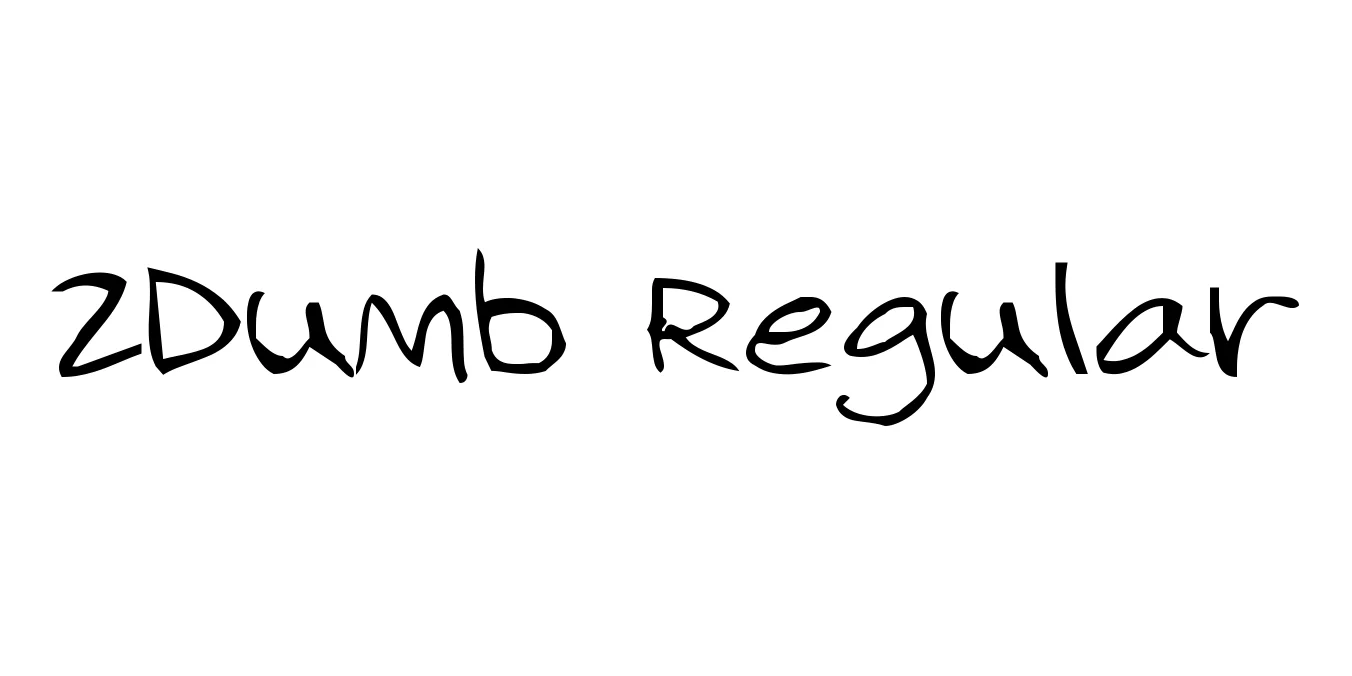
2Dumb Regular
Designed by Benjamin Nathan
| Category | Handwritten |
| Designer | Benjamin Nathan |
2Dumb Regular is a widely recognized hand-drawn typeface created by Benjamin Nathan. Designed to evoke a sense of casual, unrefined creativity, the font mimics the look of quick sketches or personal notes. It is part of a thematic set that includes its companion, 3Dumb, offering a flat, two-dimensional alternative to the layered look. Its irregular character shapes and organic strokes provide a distinct, humanistic quality that stands out in a digital landscape often dominated by rigid geometric forms.
Throughout its history, 2Dumb has been embraced by designers looking for a playful and approachable aesthetic. It is especially popular in projects that require a "DIY" or handcrafted feel, such as independent comic books, school posters, and casual web graphics. By eschewing traditional typographic rules, 2Dumb offers a relatable and friendly vibe that makes it an excellent choice for informal communication and creative storytelling.
2Dumb Regular Best Uses
Ideal for dialogue bubbles and casual narrative text.
Engaging for kids' worksheets and classroom presentations.
Perfect for adding a personal, organic touch to Instagram or Pinterest posts.
Works well for informal birthday cards and handmade invitations.